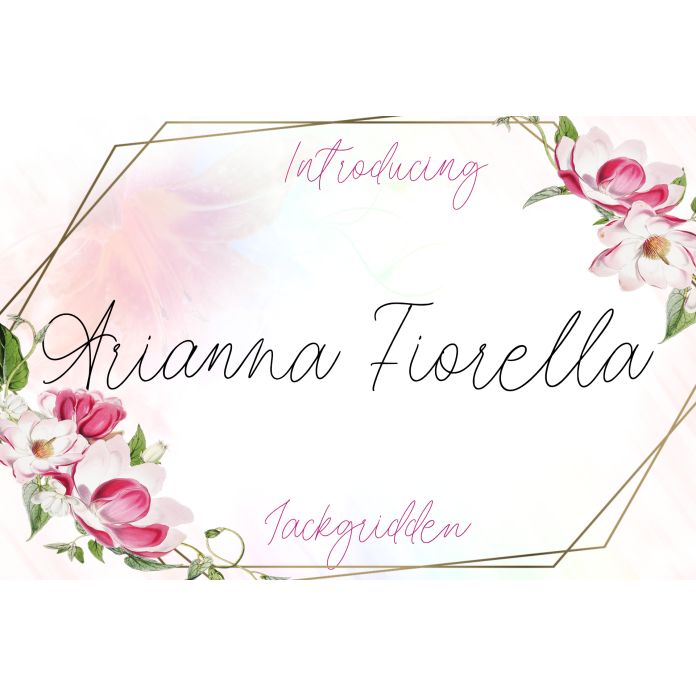
Arianna Fiorella: A Captivating Monoline Script Font
Introducing Arianna Fiorella, an elegant monoline script font designed to bring a touch of sophistication to your projects. Perfect for invitations, branding, and digital designs, this font boasts over 150 exquisite ligatures, ensuring your text flows seamlessly with a unique flair.